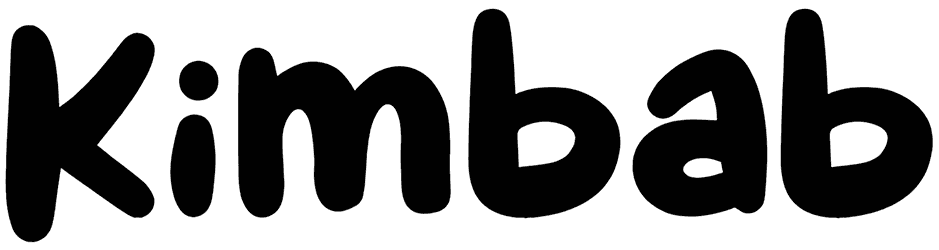
Kimbab Font
The Kimbab is a well-designed font that attracts viewers with a friendly vibe. This cartoon font has bold letters with smooth edges that seem entertaining and hard to forget.
The Kimbab font, with its cute style, is an excellent choice for various purposes such as book covers, animations, logos, and posters. Moreover, this playful font’s letters have a unique form and look like handwritten fonts, which helps you warmly communicate with your audience.